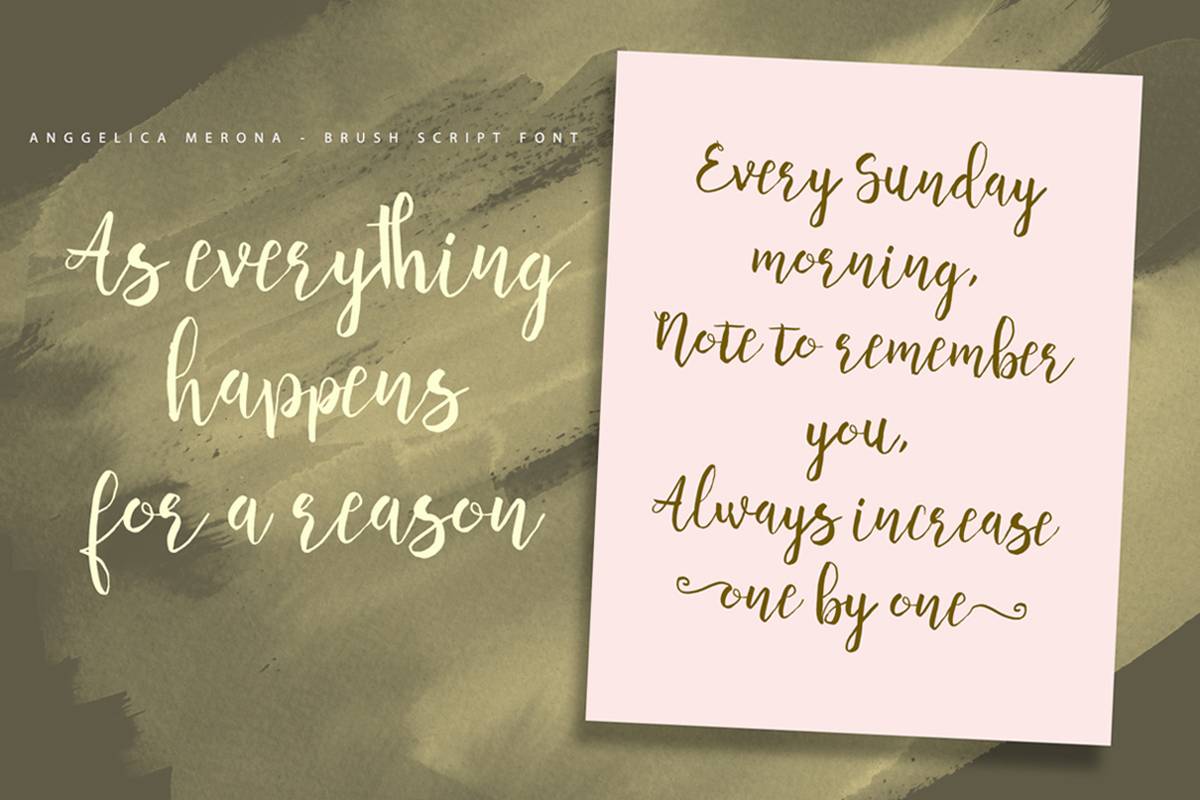
Anggelica Merona is a lively handwritten script font featuring elegant, flowing strokes with moderate contrast and playful flourishes. Its tall x-height and slightly irregular, organic letterforms give it a charming, personal feel perfect for creative branding, invitations, or lifestyle content. This font works best in headlines and logos where a warm, artistic touch is desired.
Anggelica Merona Font
About Anggelica Merona Font